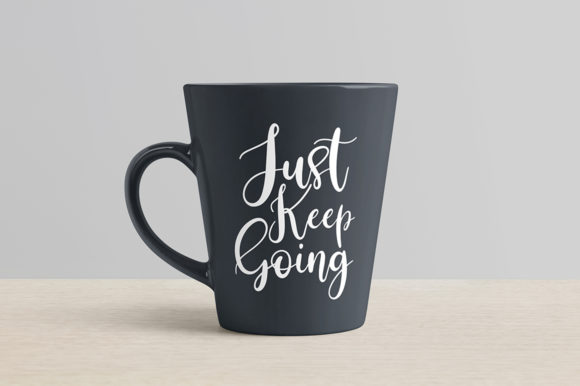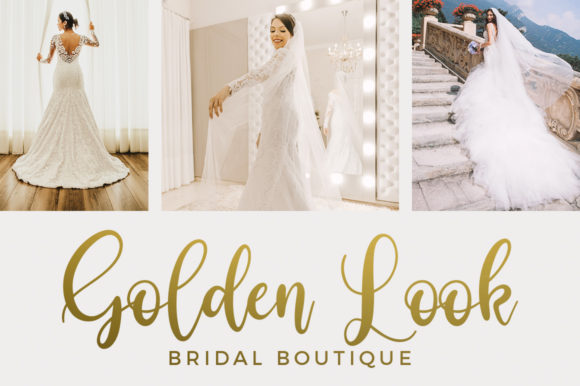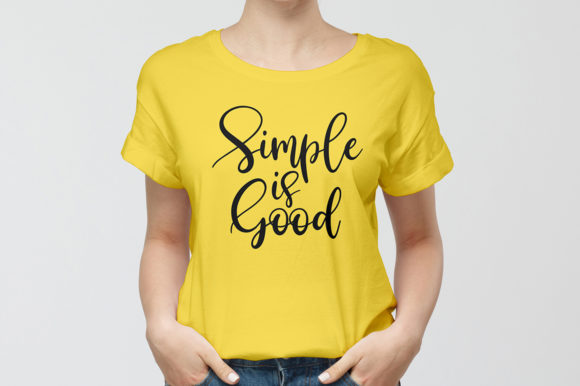
Introduction to Love Balqist Font
Have you ever found yourself lost in the world of typography, searching for that perfect font to elevate your creative project? For many designers, this moment of discovery is a thrilling experience, like stumbling upon a hidden treasure. And, for those who value elegance and sophistication, the Love Balqist Font is an excellent find.
This modern paint brush calligraphy font is designed to make a statement, with its beautiful flows and high-quality aesthetic. Whether you’re working on a wedding invitation, a product packaging design, or a photography project, the Love Balqist Font is an excellent choice. Its versatility and sophistication make it a valuable resource for designers, allowing them to create stunning visuals with ease.
Key Features of Love Balqist Font
- Unique, hand-drawn design perfect for creative projects requiring a personal touch.
- Designed to be used at various resolutions and sizes, from small text to large headings, without compromising quality.
- Perfect for designers, artists, and writers seeking a distinctive and creative font for their next project.
Honest Review: Love Balqist Font
What works well: ✨ The font’s elegant, cursive design is perfect for adding a touch of romance to any project. The transparent background feature allows for seamless integration with images or other design elements, making it a versatile design resource. The font’s high quality is evident in its smooth, even lines and precise letterforms.
Limitations: ⚠️ While the font is a great addition to any design, its limited character set can be a drawback. I found myself wishing for more punctuation and special characters to round out the set. Additionally, the font may not be suitable for projects requiring a bold, eye-catching font.
Overall, the Love Balqist Font is a great choice for designers looking to add a touch of whimsy to their projects. With a little creativity, its limitations can be overcome, making it a valuable design resource in your toolkit.
- Elegant, cursive design
Tips for Getting the Most Out of the Love Balqist Font
The Love Balqist Font is a versatile design resource that can be used in a variety of creative projects, including:
– Social media graphics and presentations
– Logos and branding materials